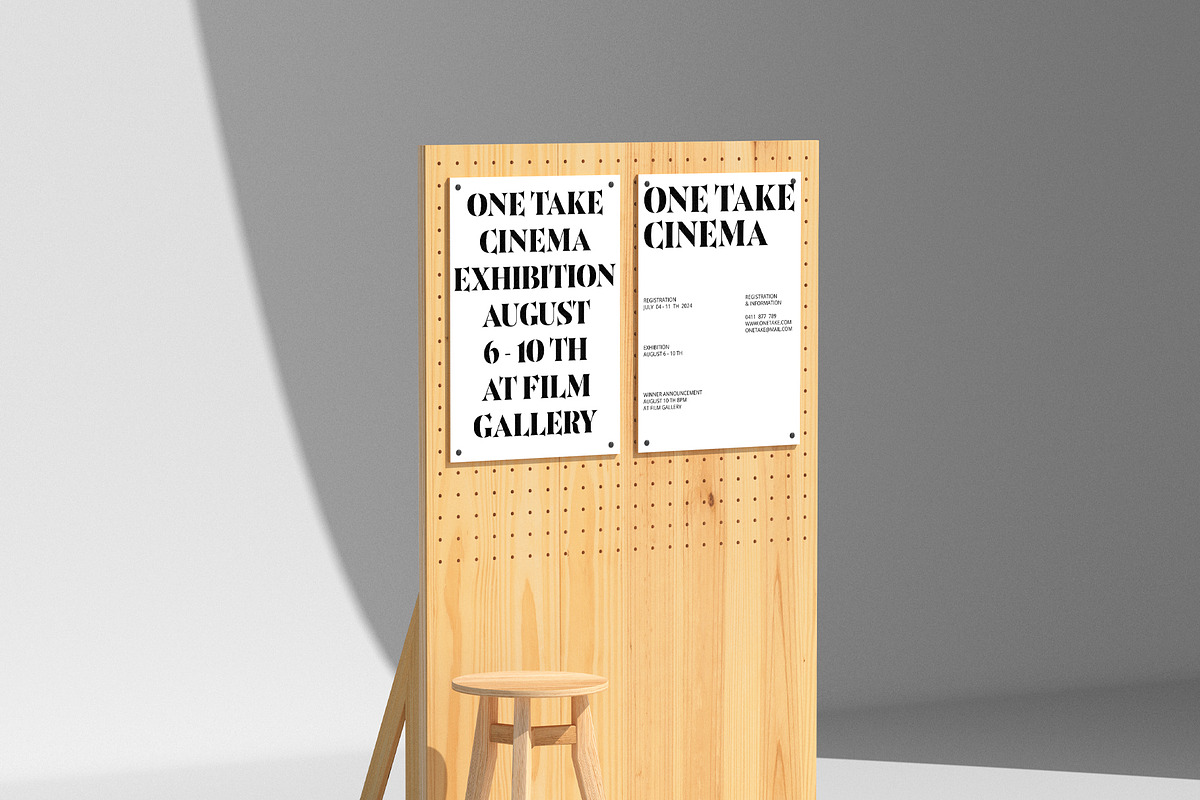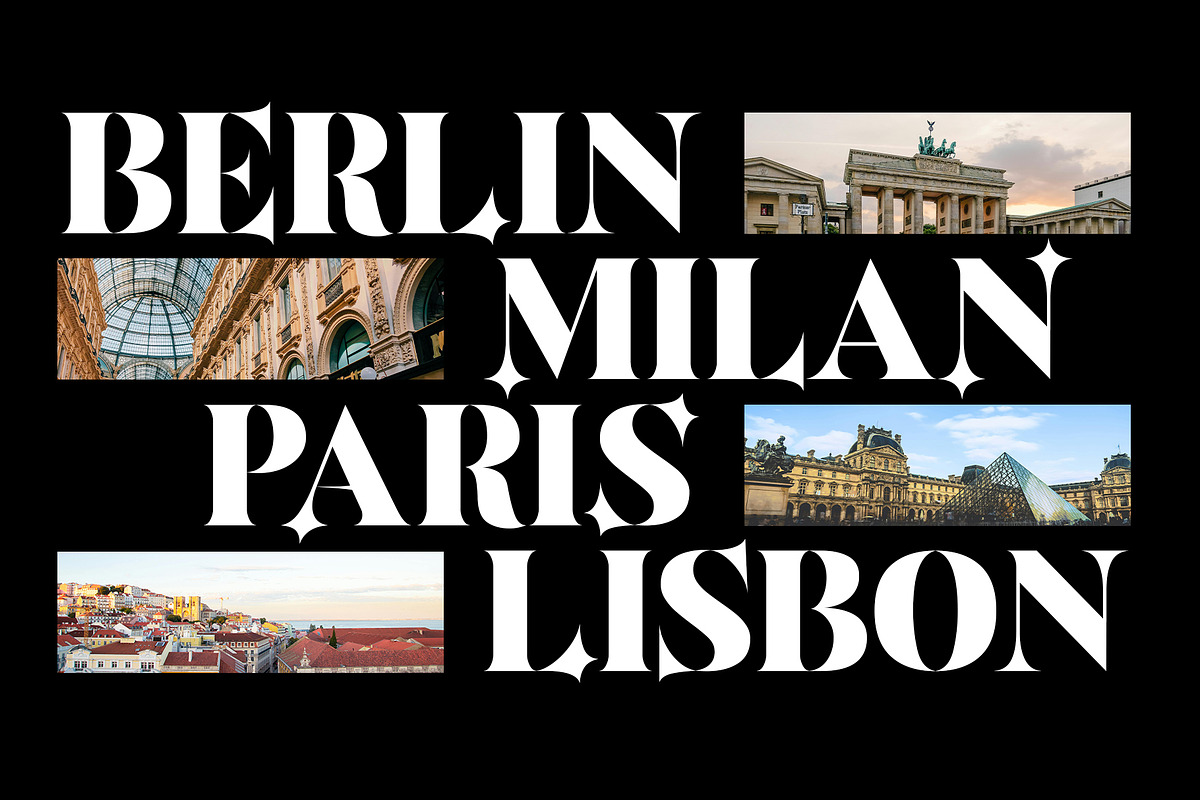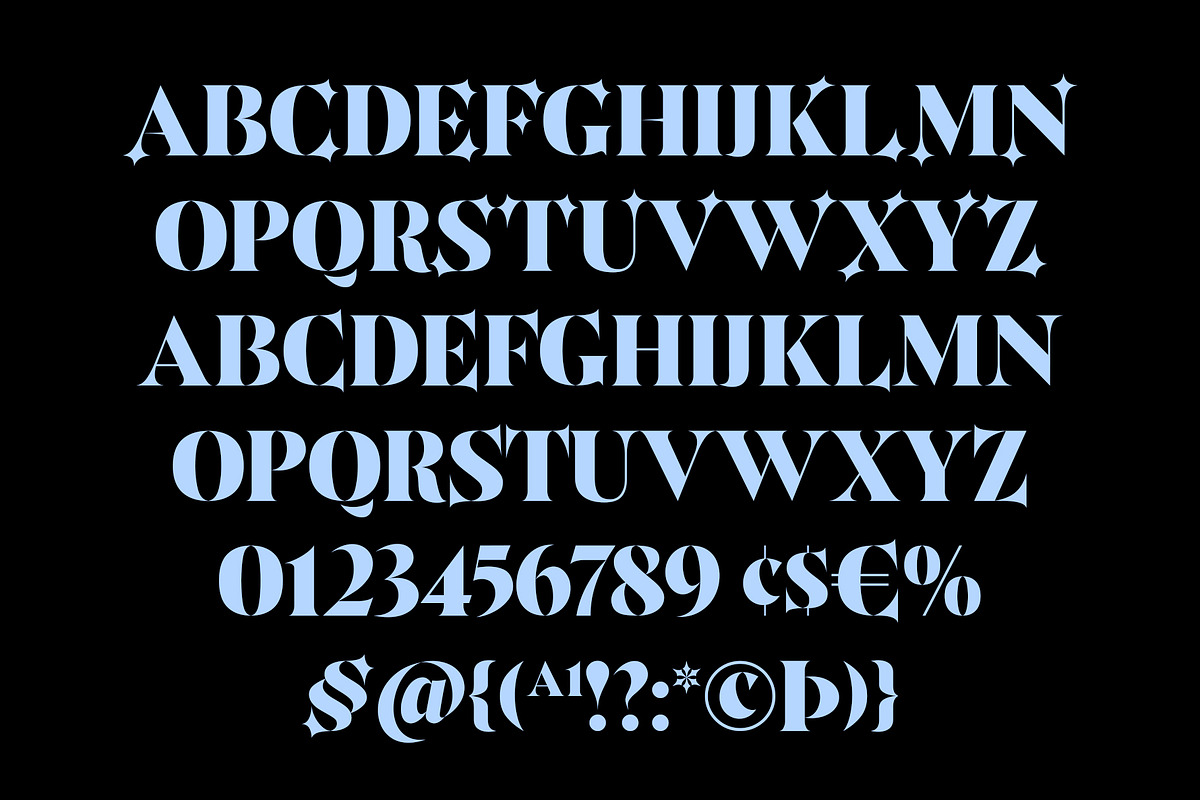
ED Ontika is a bold serif display font with sharp edges. The bold appearance of the font makes this font easy to read and can be combined with other fonts.
This font also consists of capital characters which have several OpenType features such as stylistic sets, ligatures, and multi-language support.